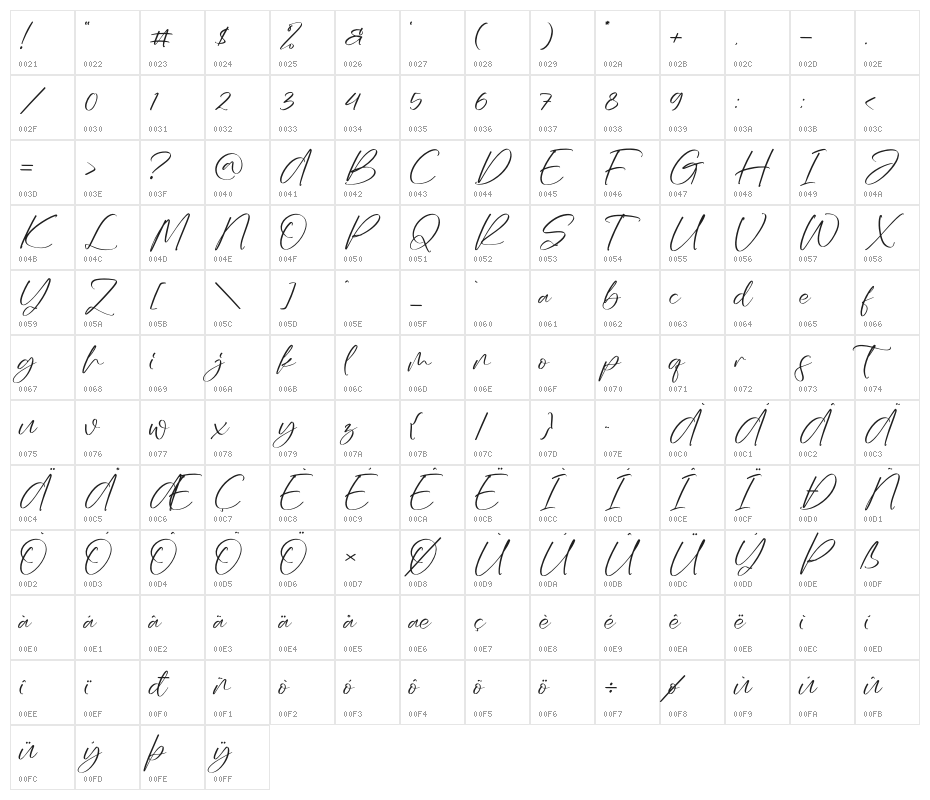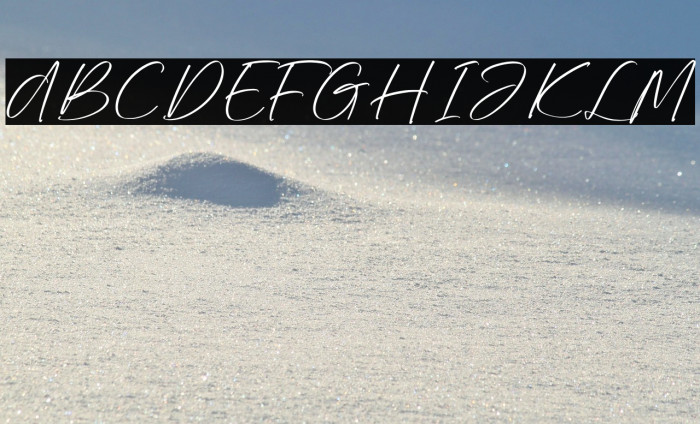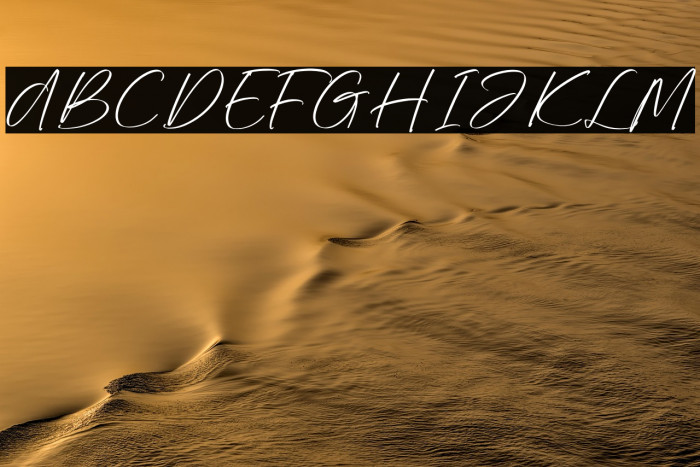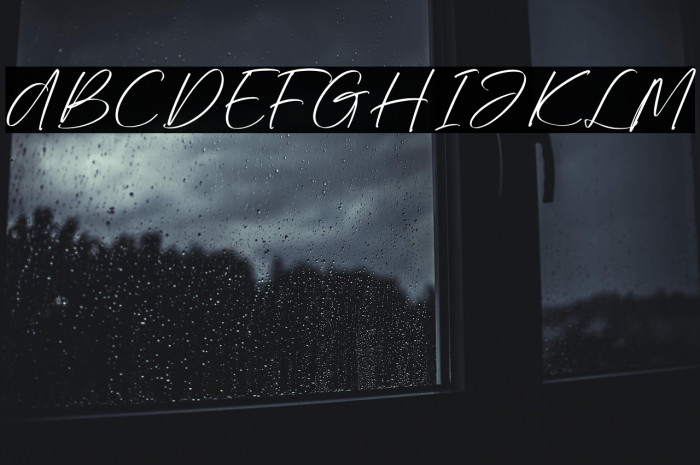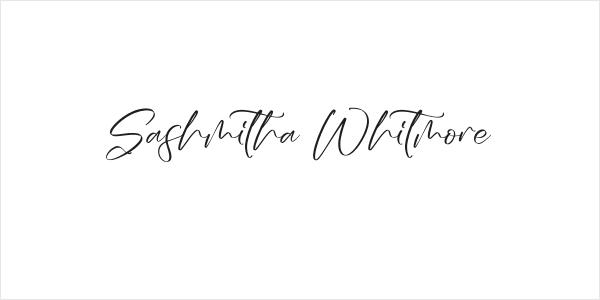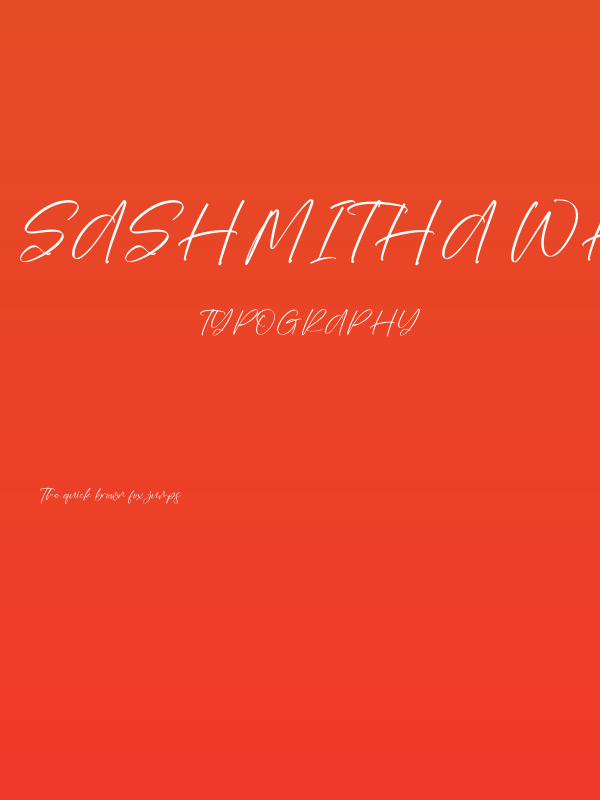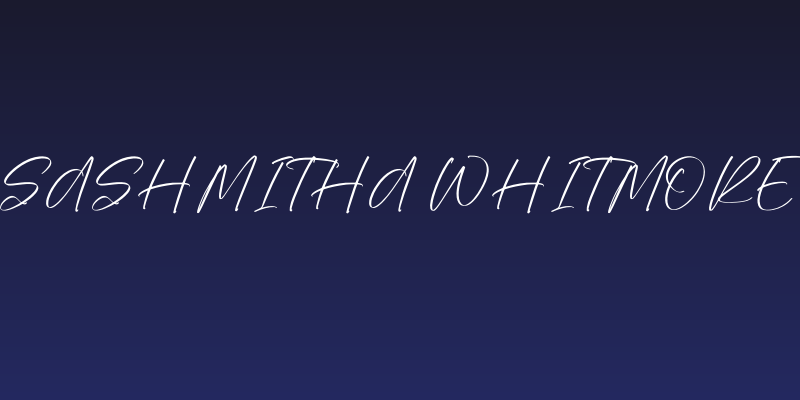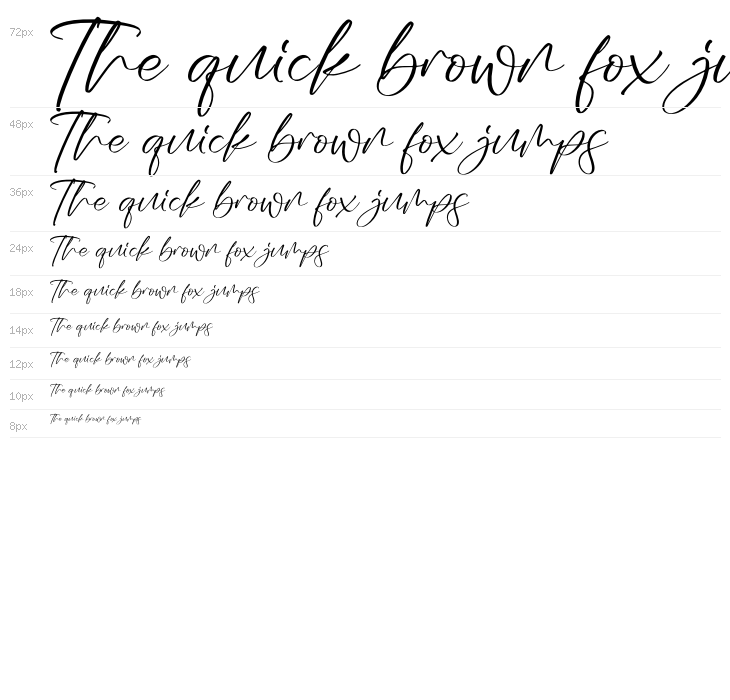
Sashmitha Whitmore Font
Sashmitha Whitmore Description
A flowing, elegant script font with a handwritten style, featuring smooth curves and a natural, organic feel.
| Overall Style | Elegant, Handwritten |
| Use Case | Logos, Invitations |
| Proposed Projects | Invitations, greeting cards, branding. |